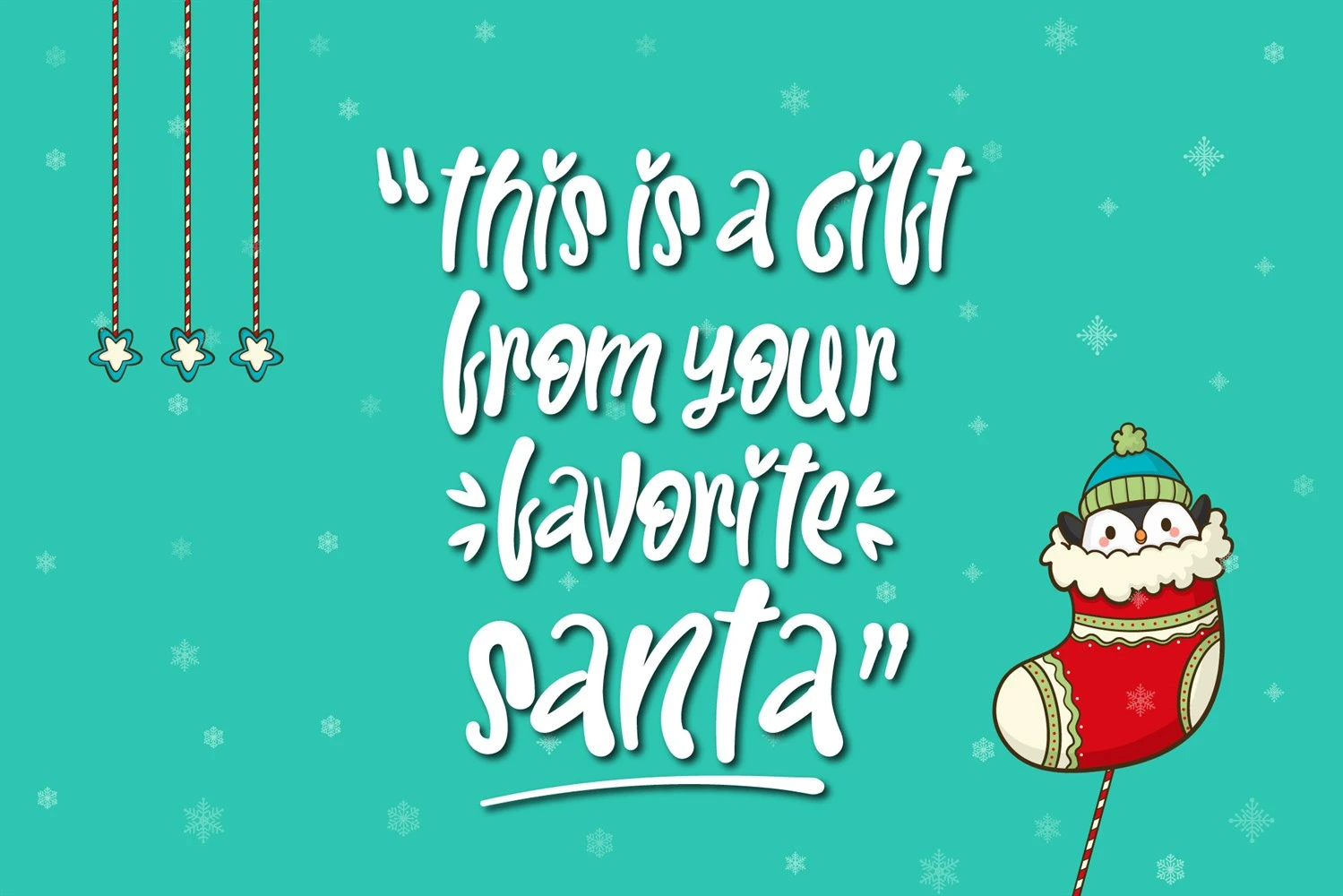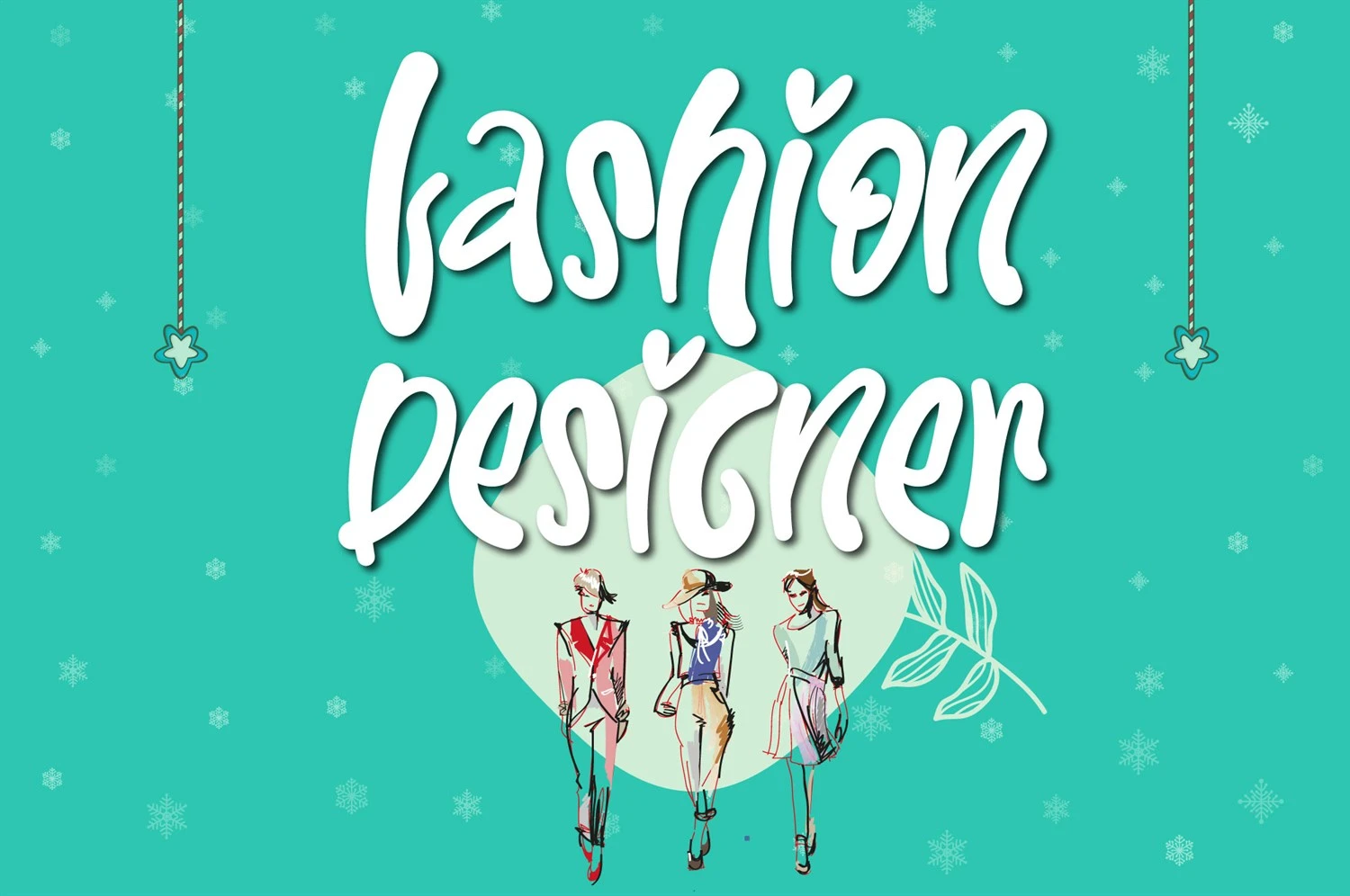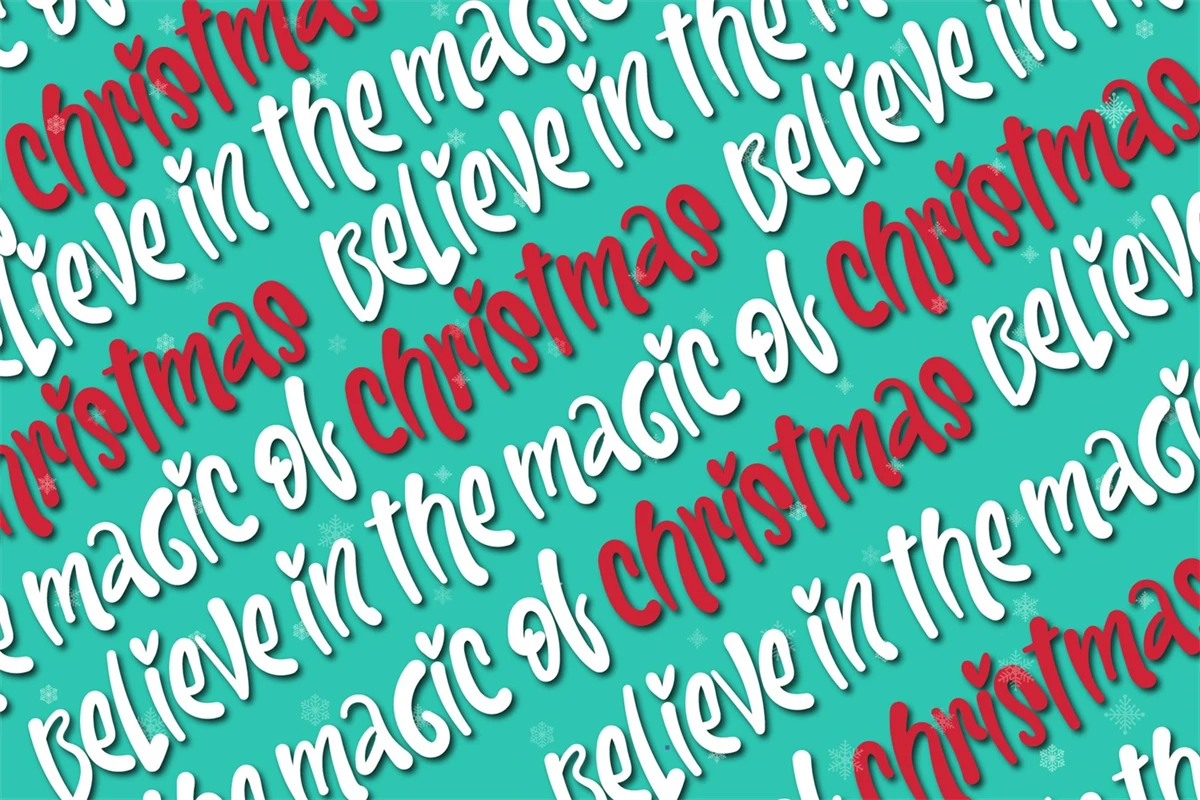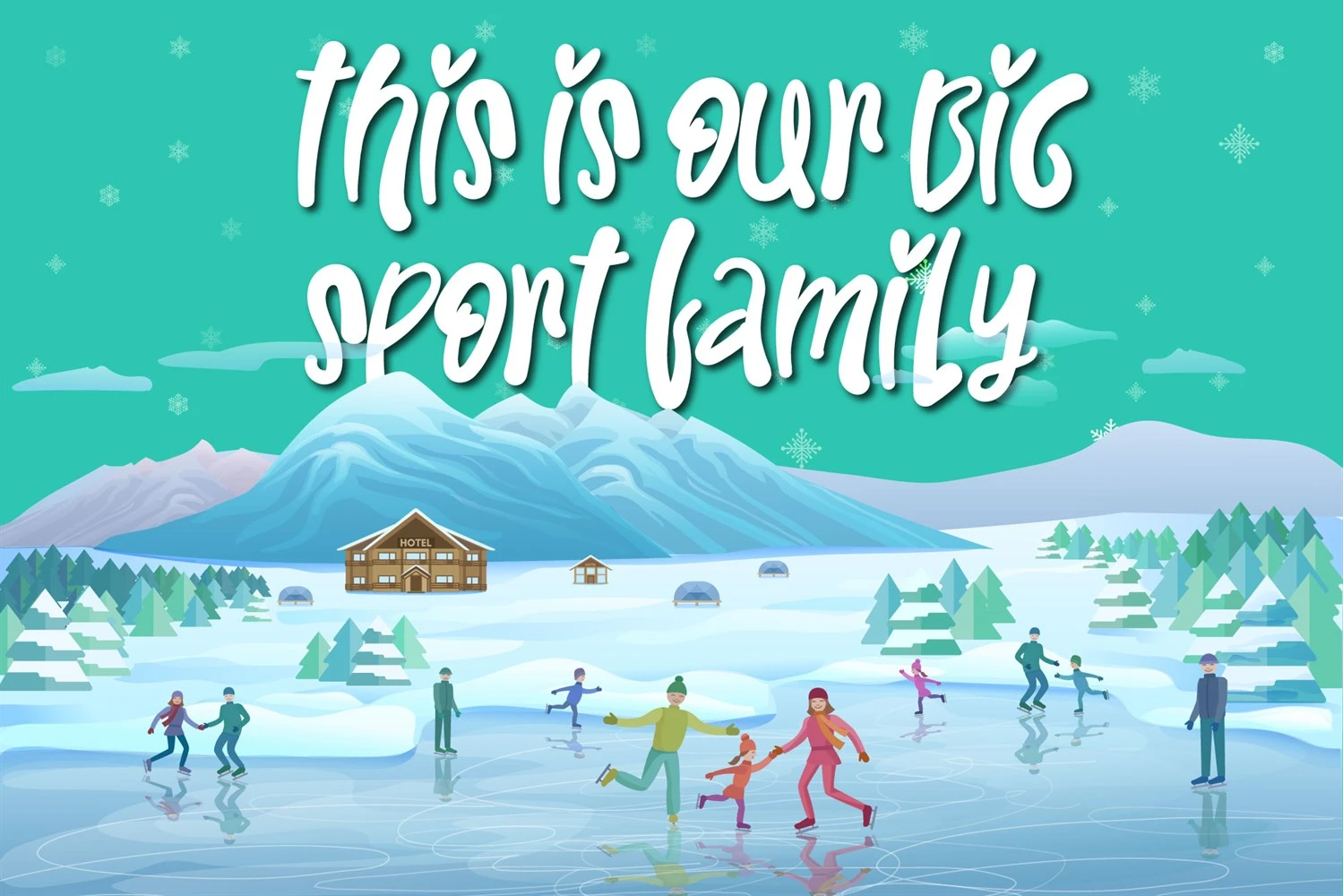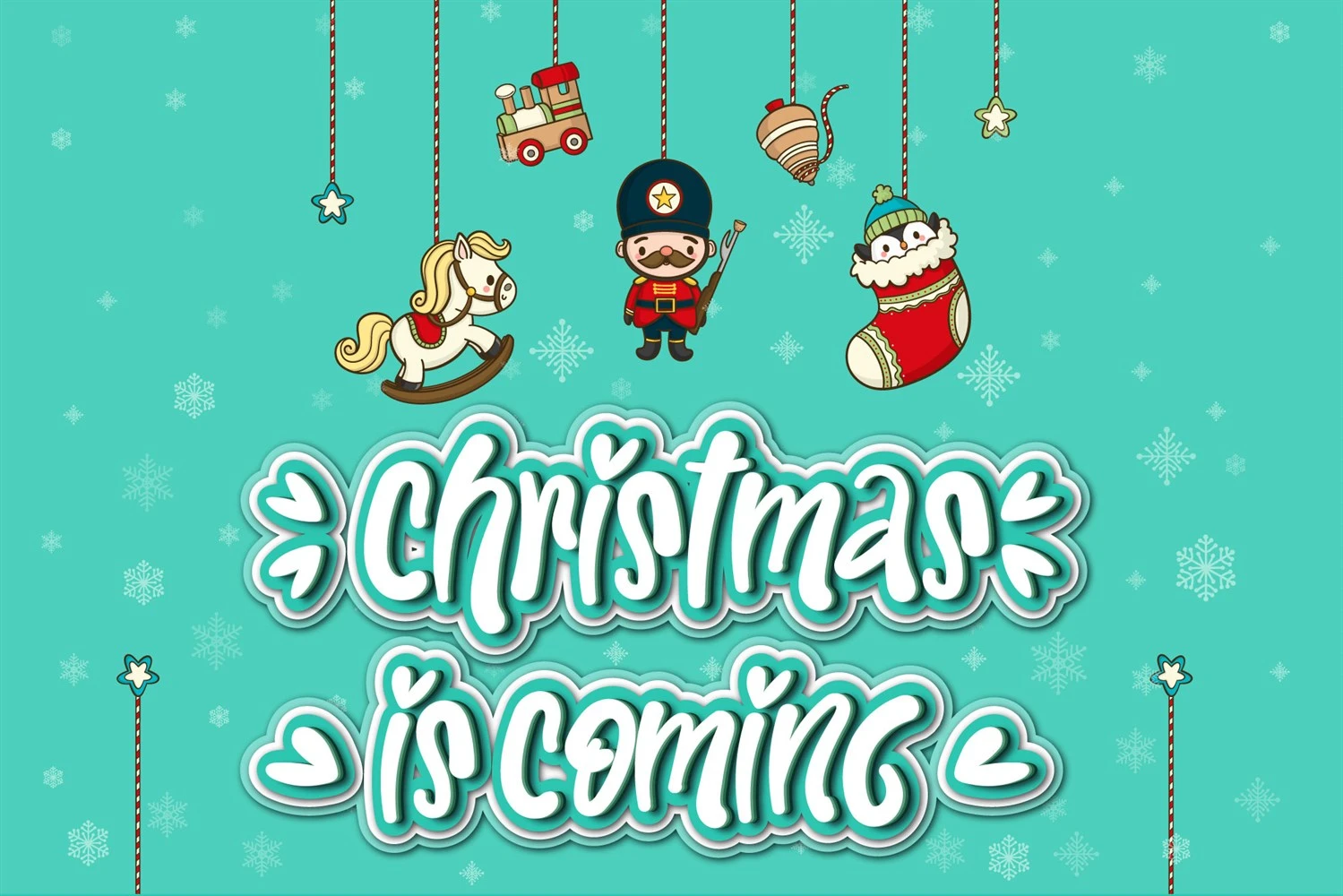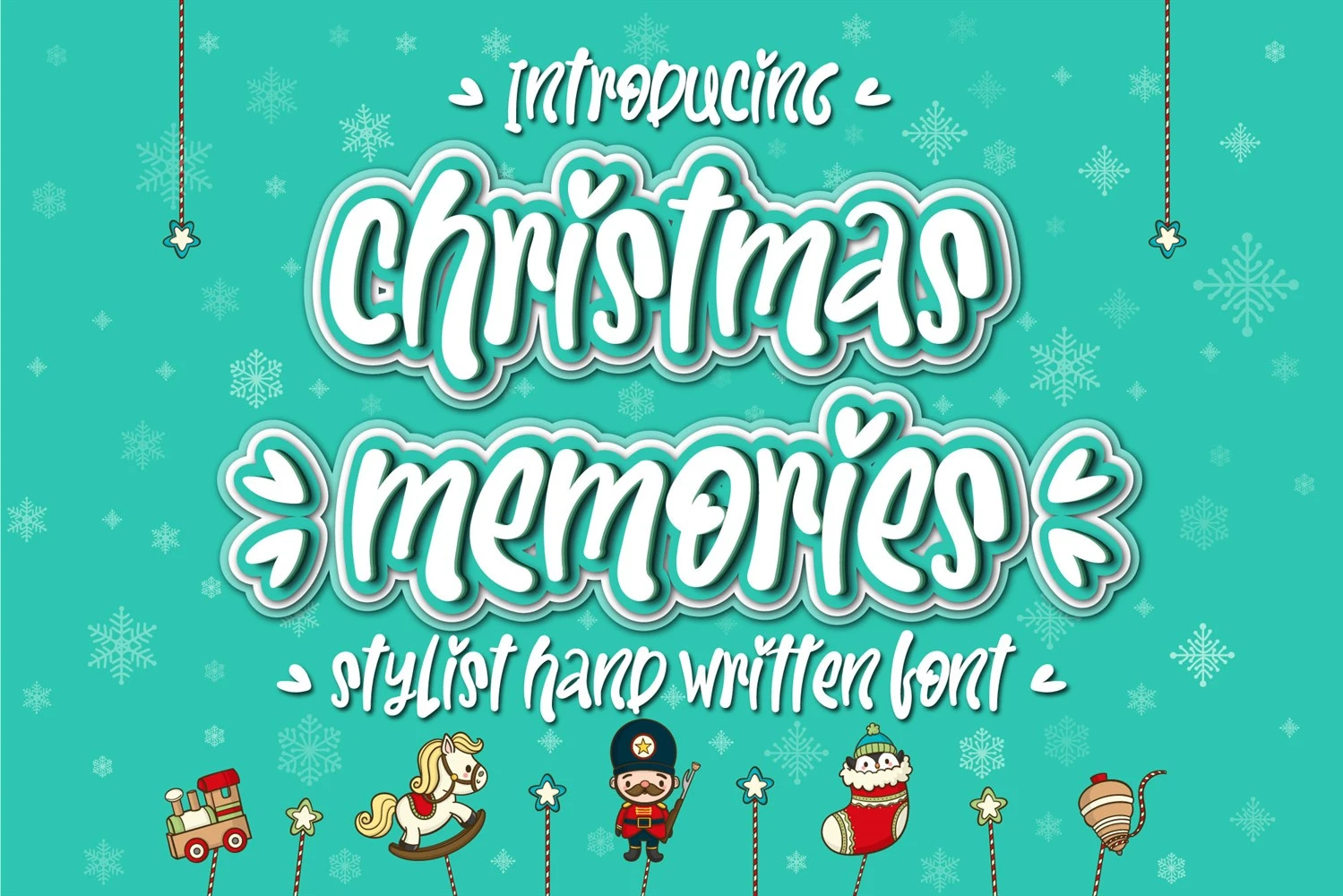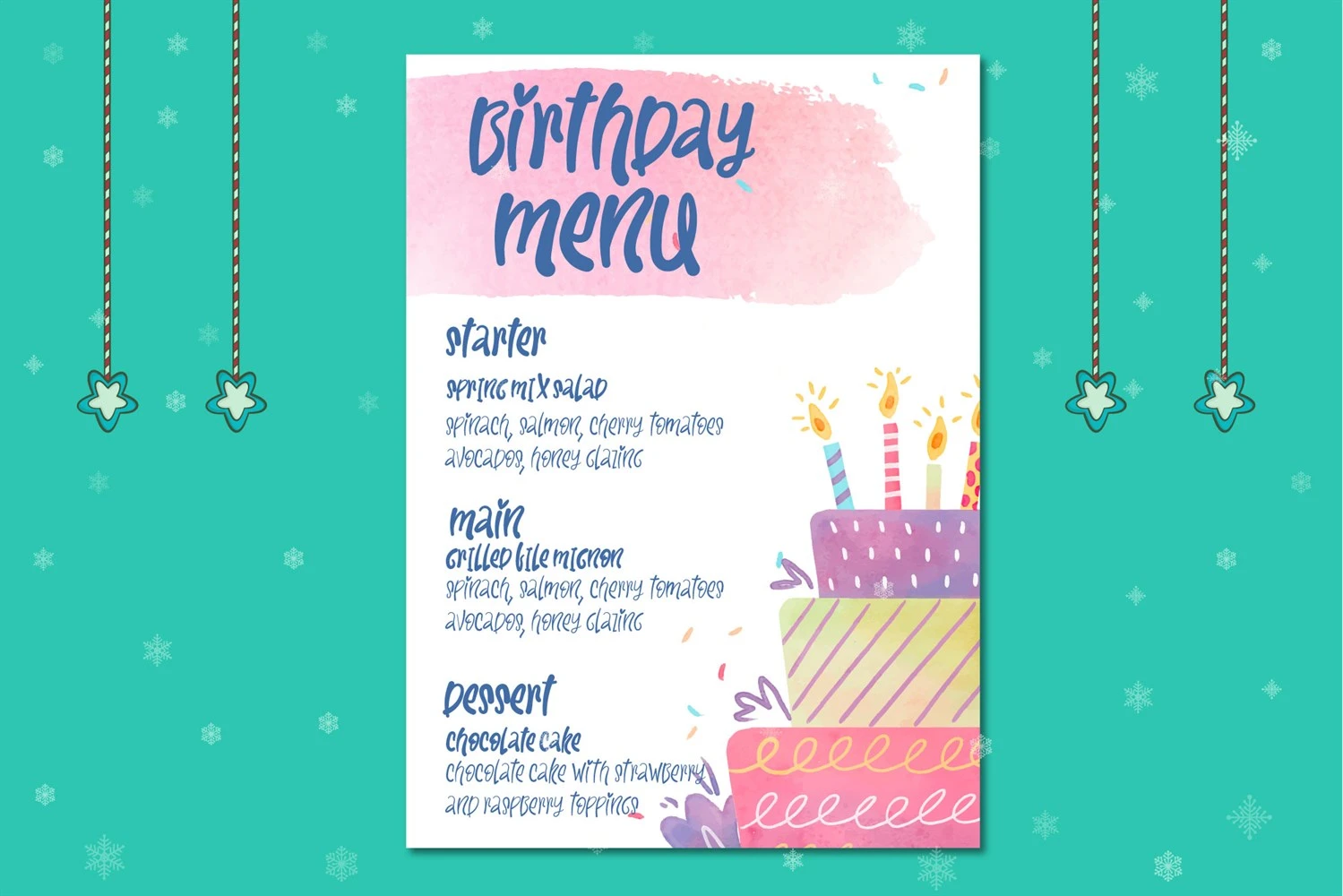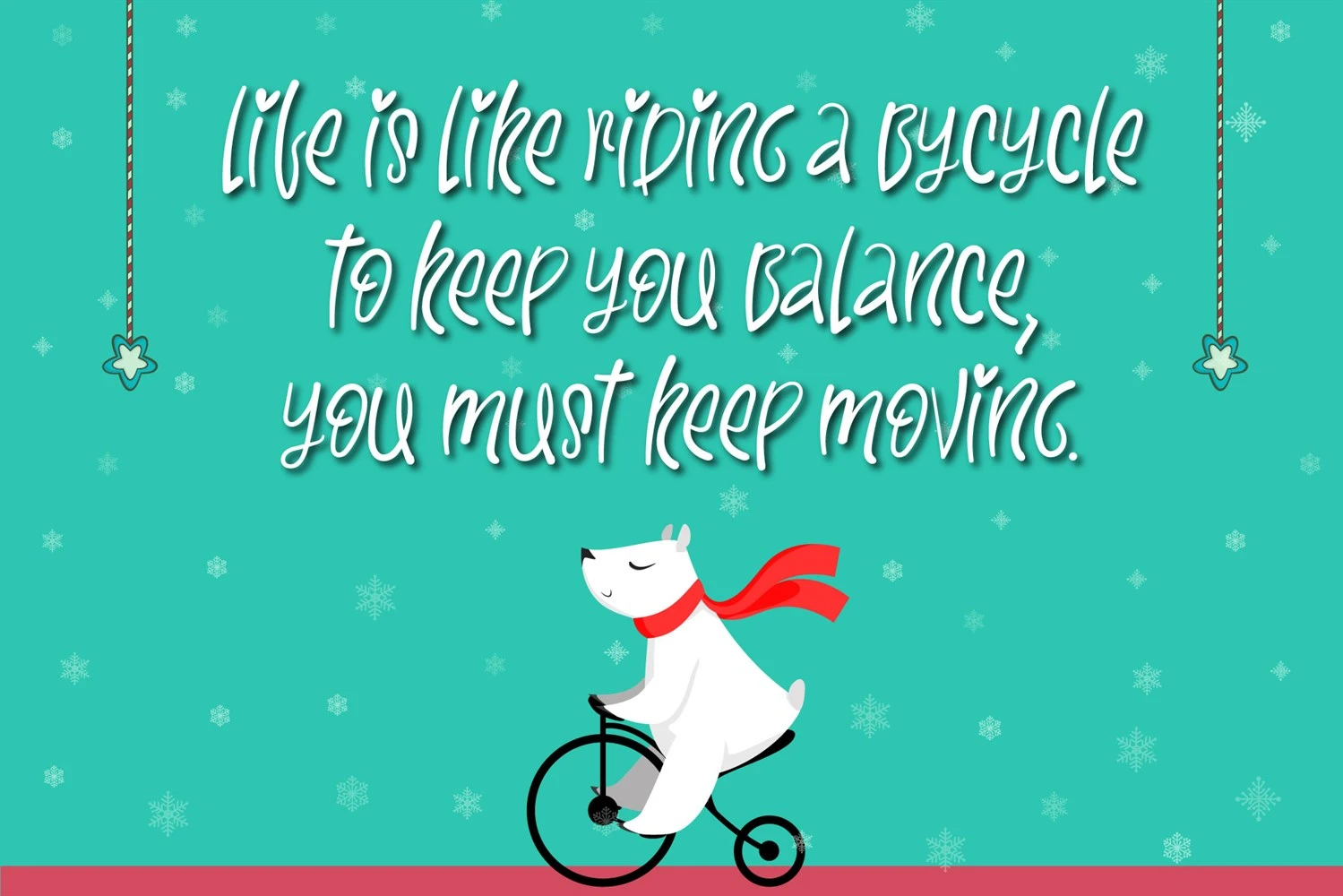
Elevate your holiday designs with the enchanting Christmas Memories Font. This beautiful and stylish script font captures the essence of the festive season with its smooth curves and elegant appeal. Whether you're working on fashion branding, editorial designs, greeting cards, or any other project that needs a touch of holiday charm, this font is the perfect choice. Its versatility and balanced design make it a must-have for designers looking to create stunning and memorable Christmas-themed creations. Embrace the magic of the season and let the Christmas Memories Font bring your designs to life.